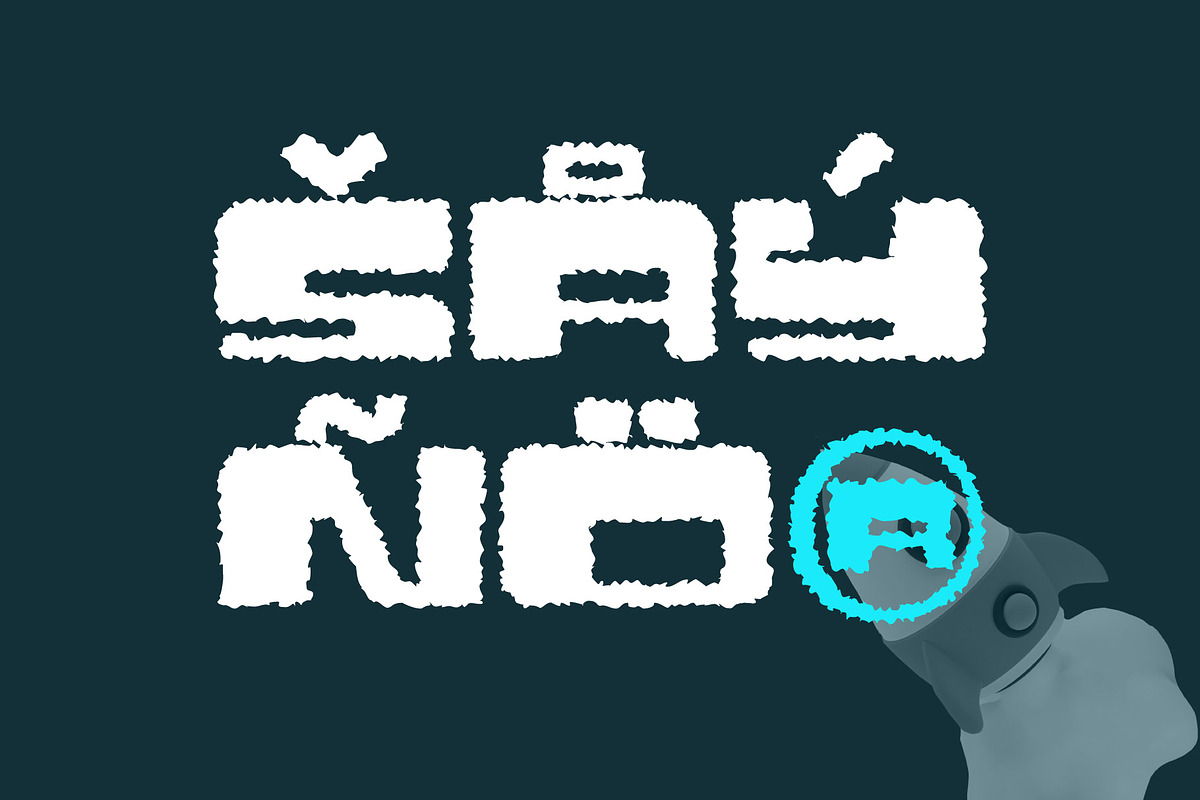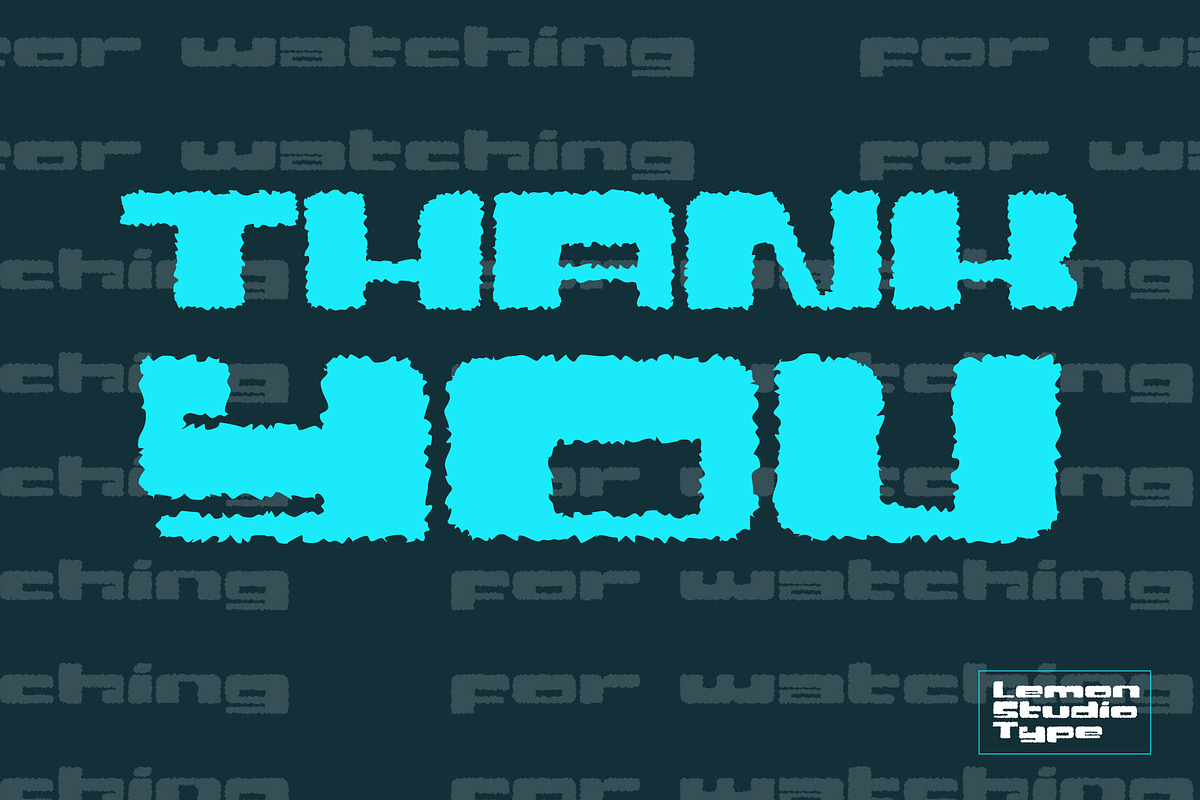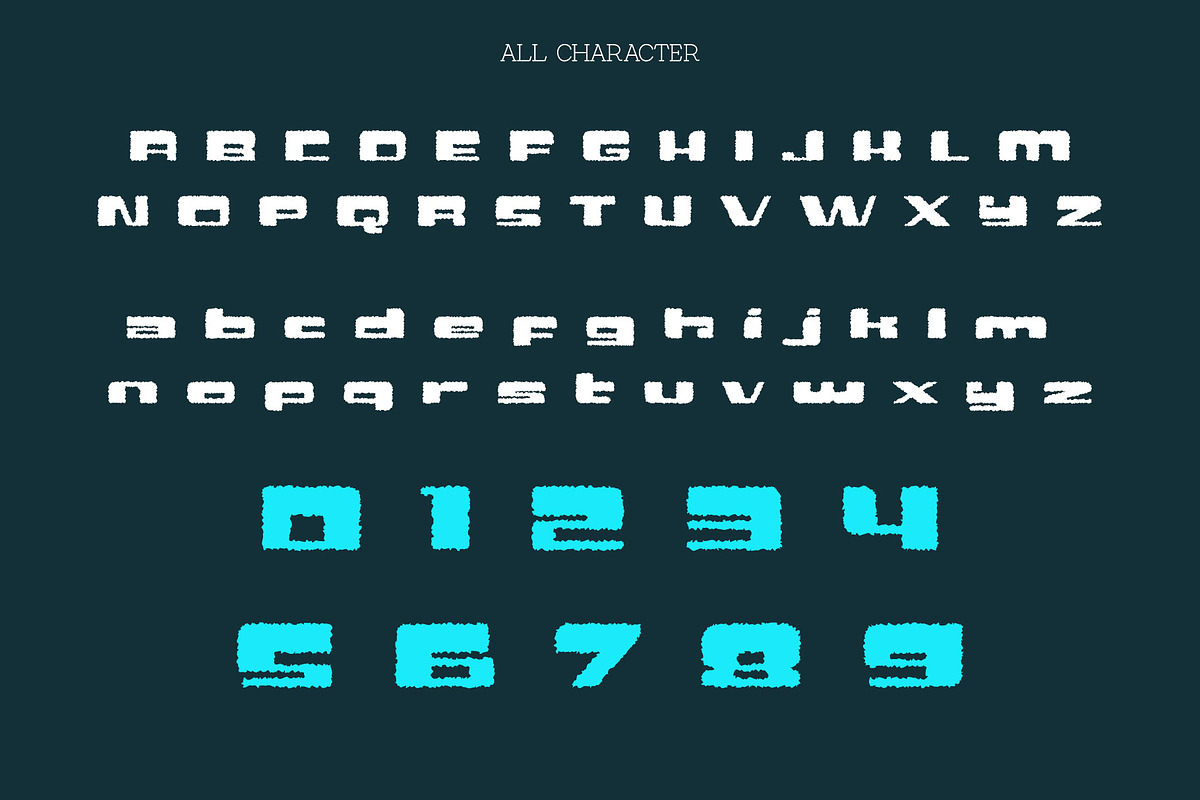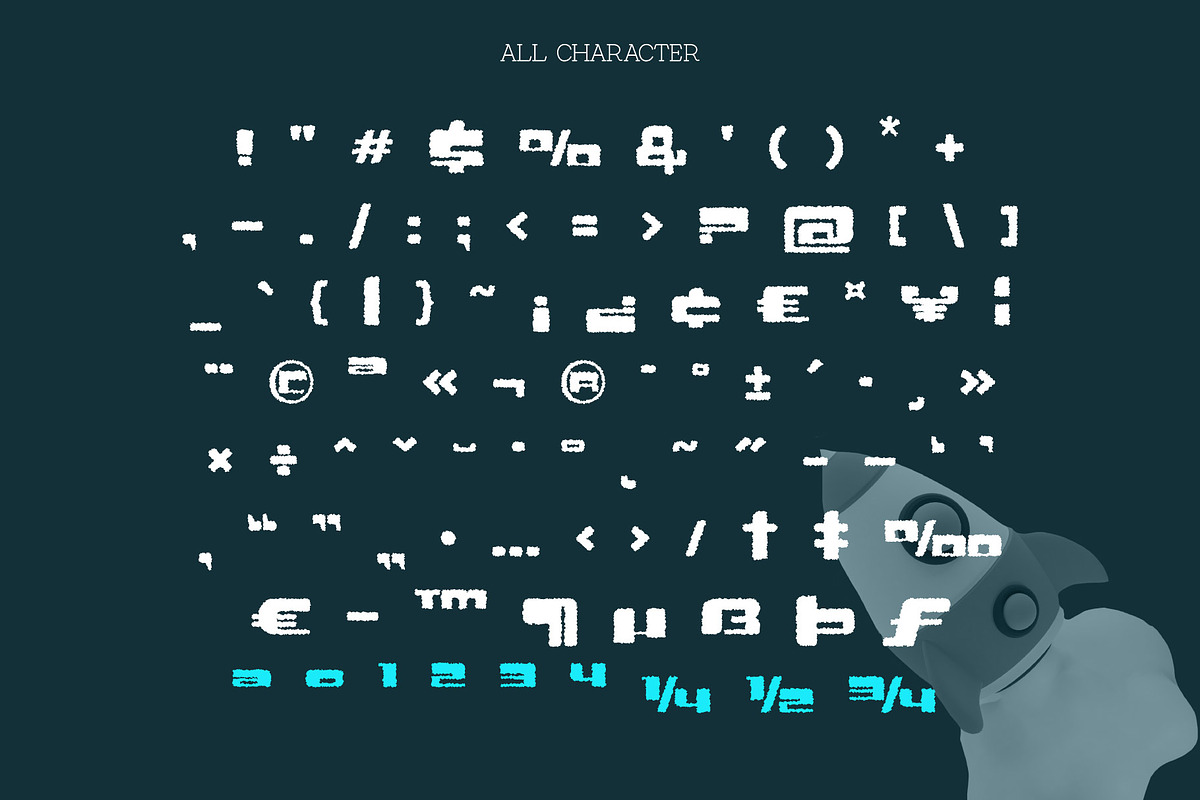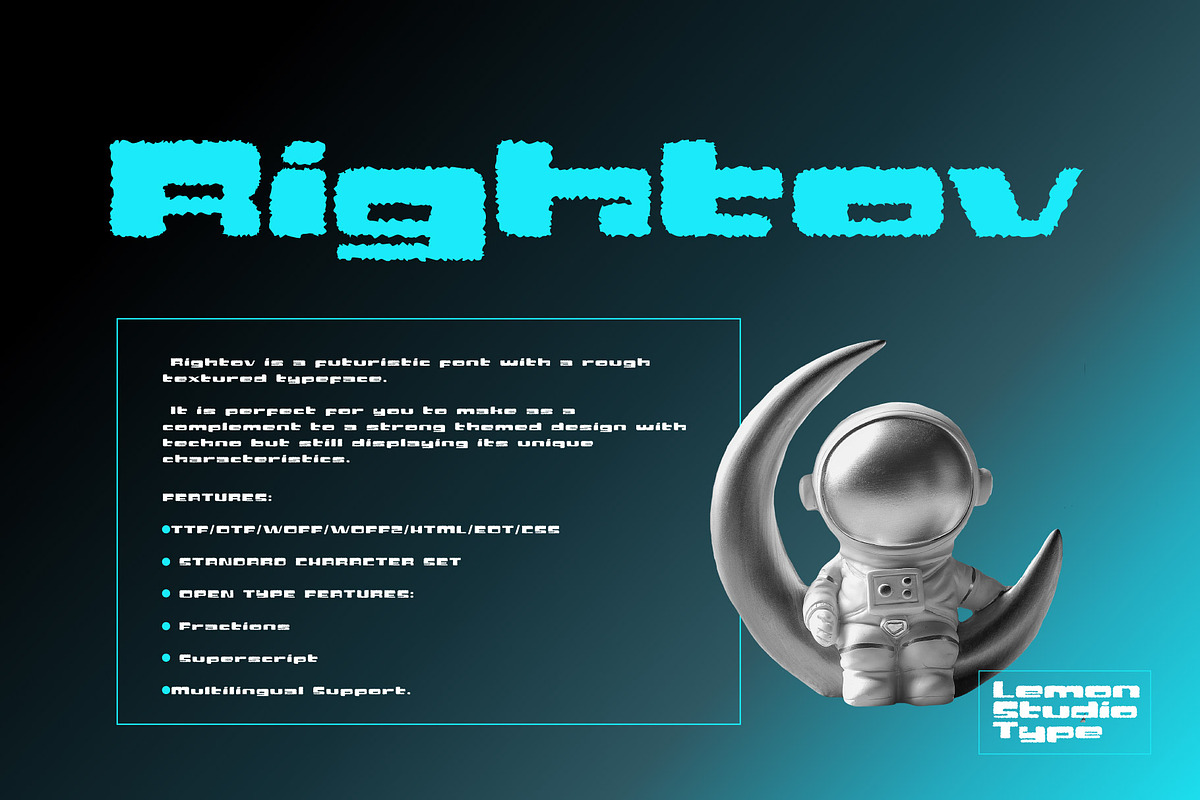
Rightov - Futuristic
Rightov is a futuristic font with a rough textured typeface. It is perfect for you to make as a complement to a strong themed design with techno but still displaying its unique characteristics.
STANDARD CHARACTER SET
OPEN TYPE FEATURES:
Fractions
Superscript
-Multilingual Support.